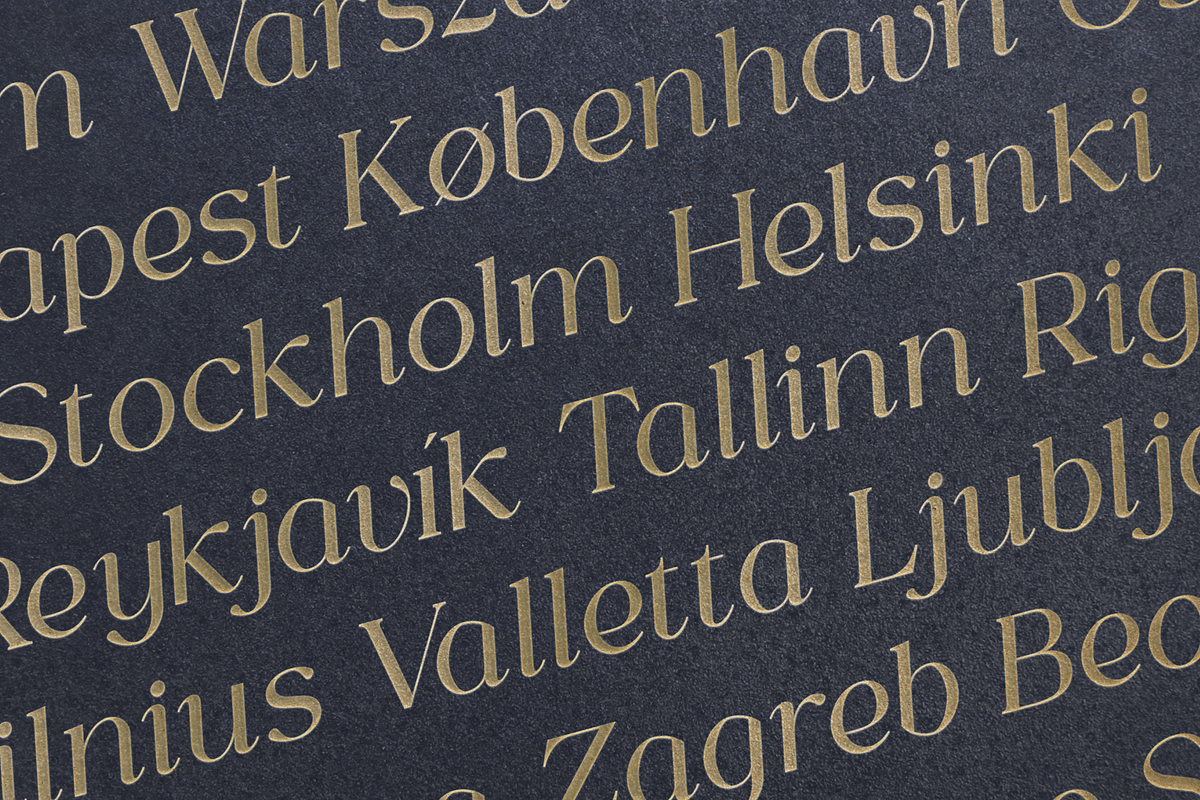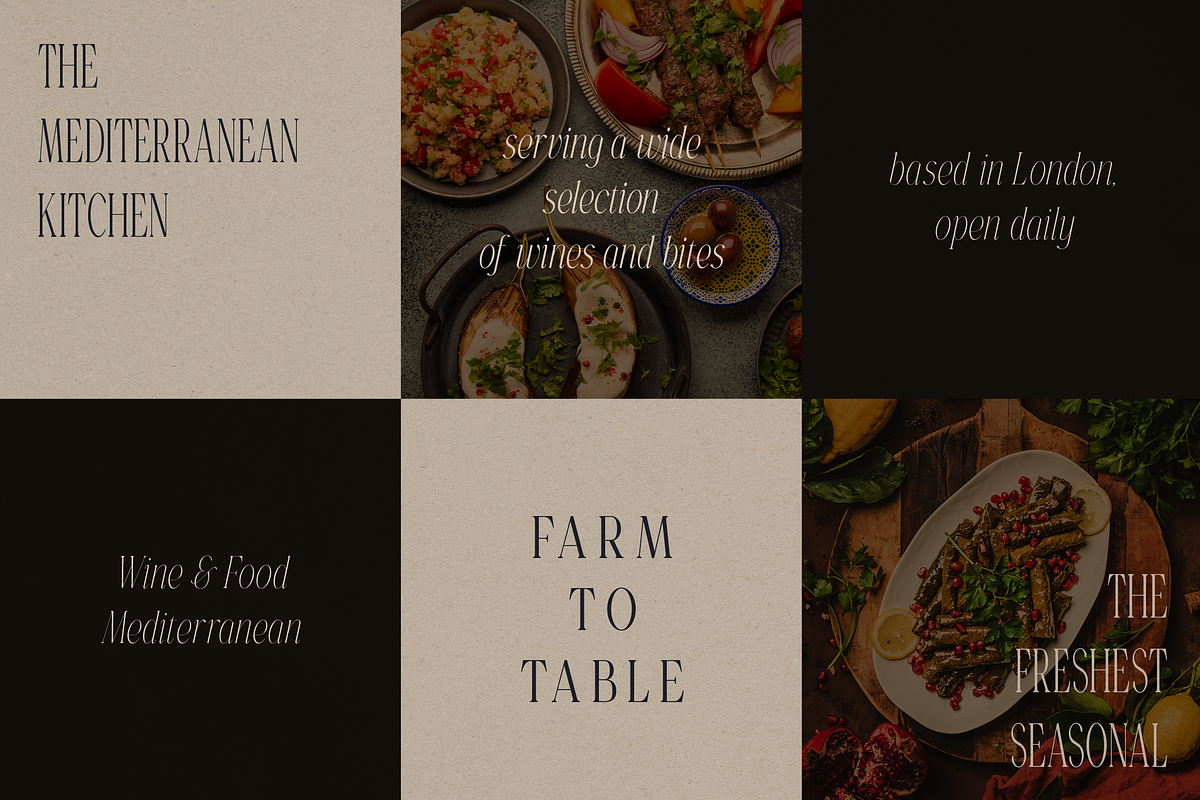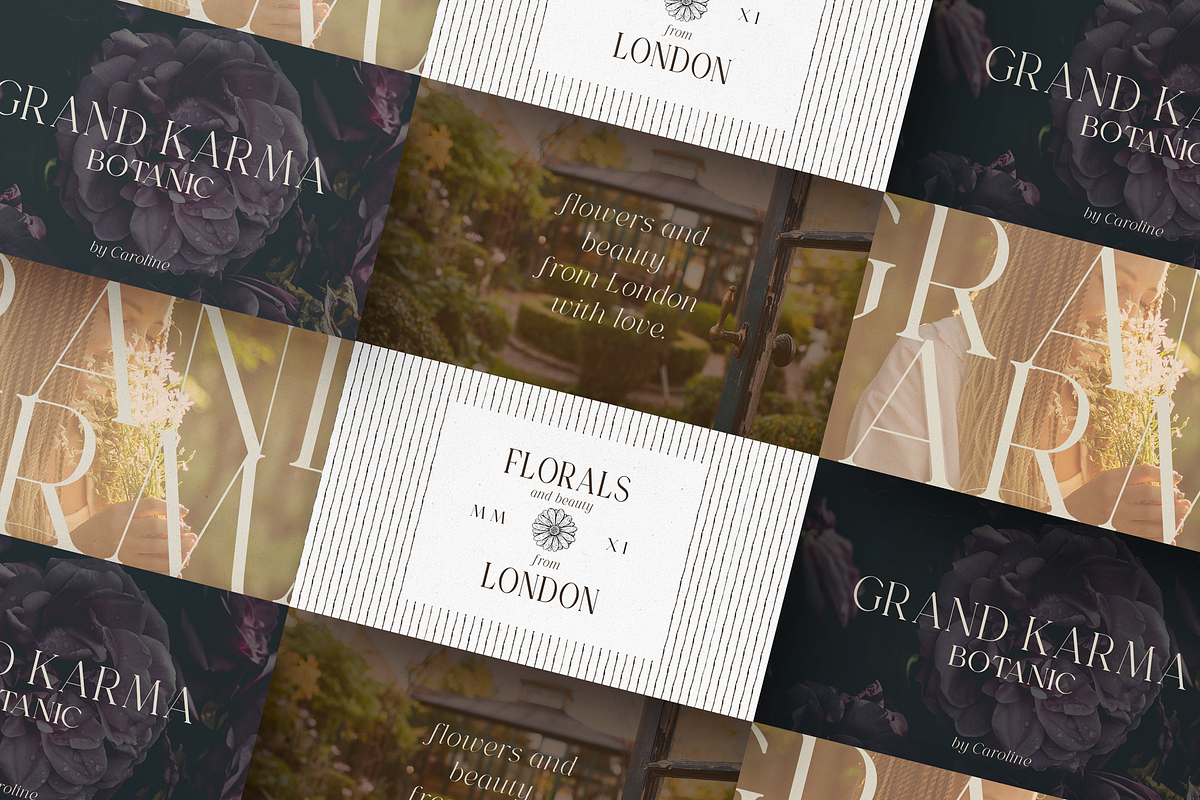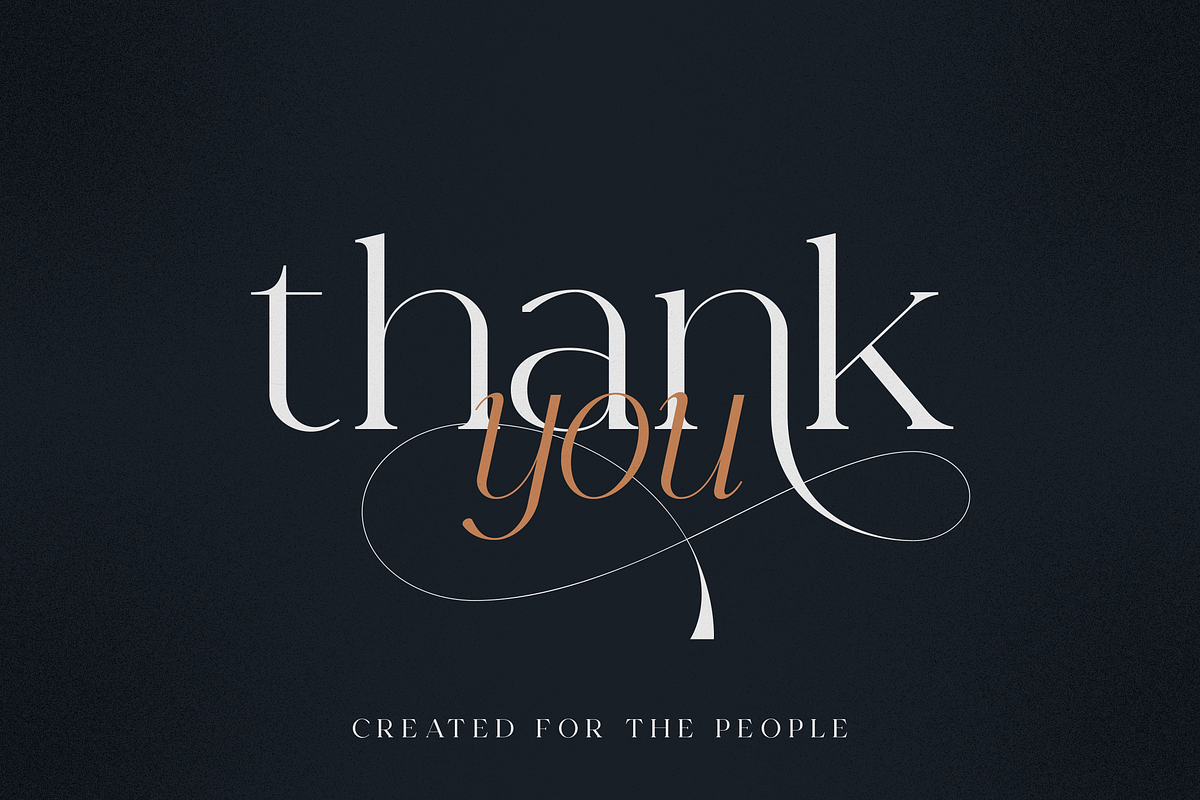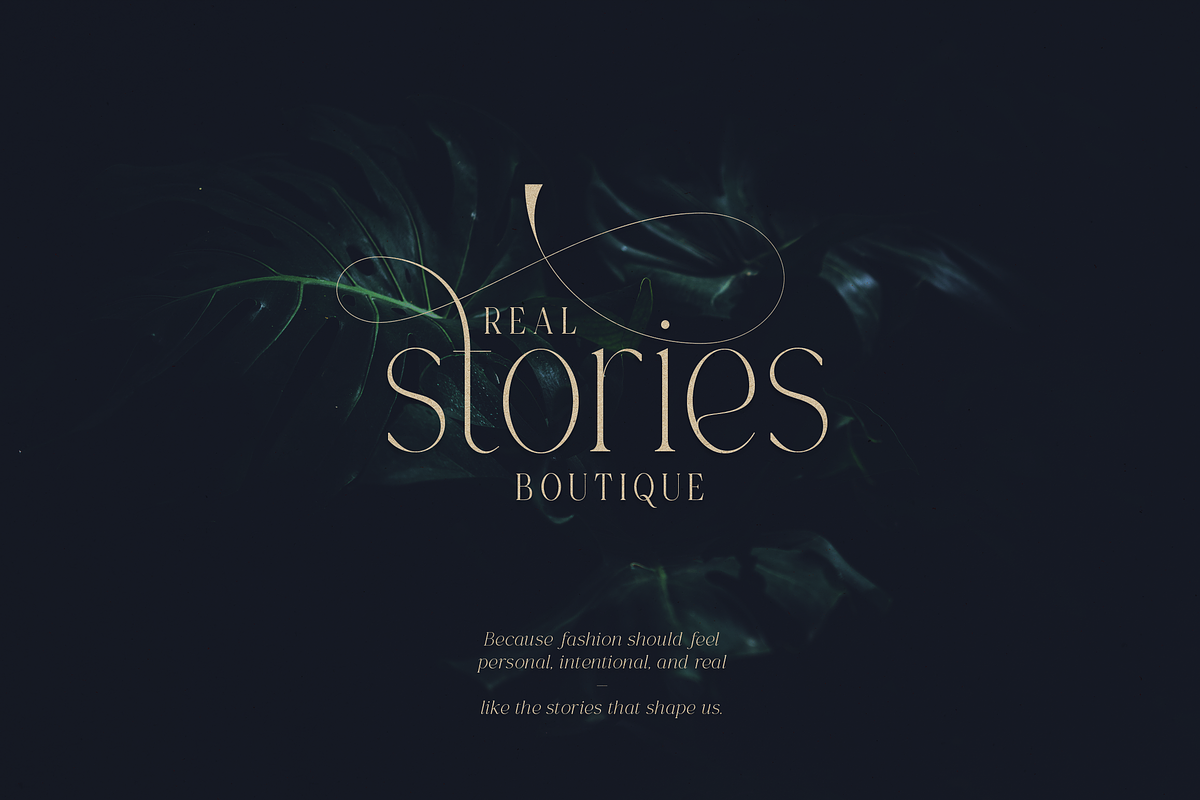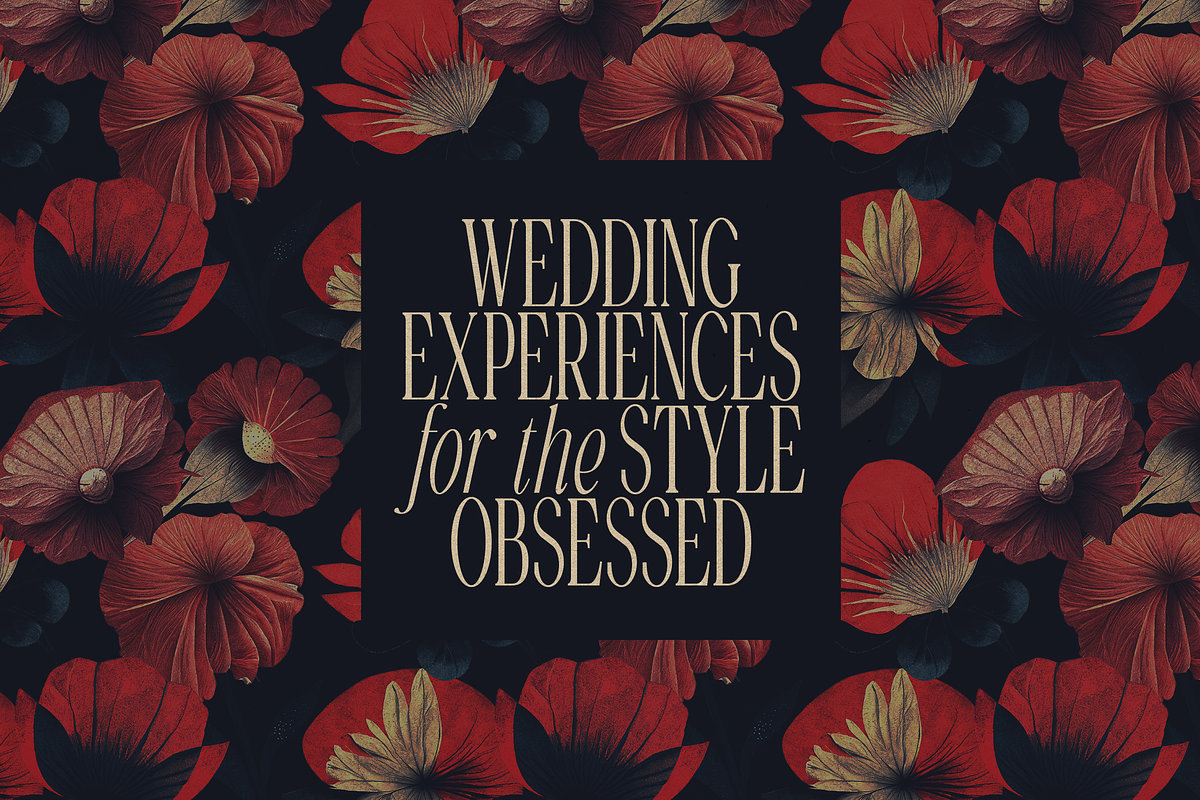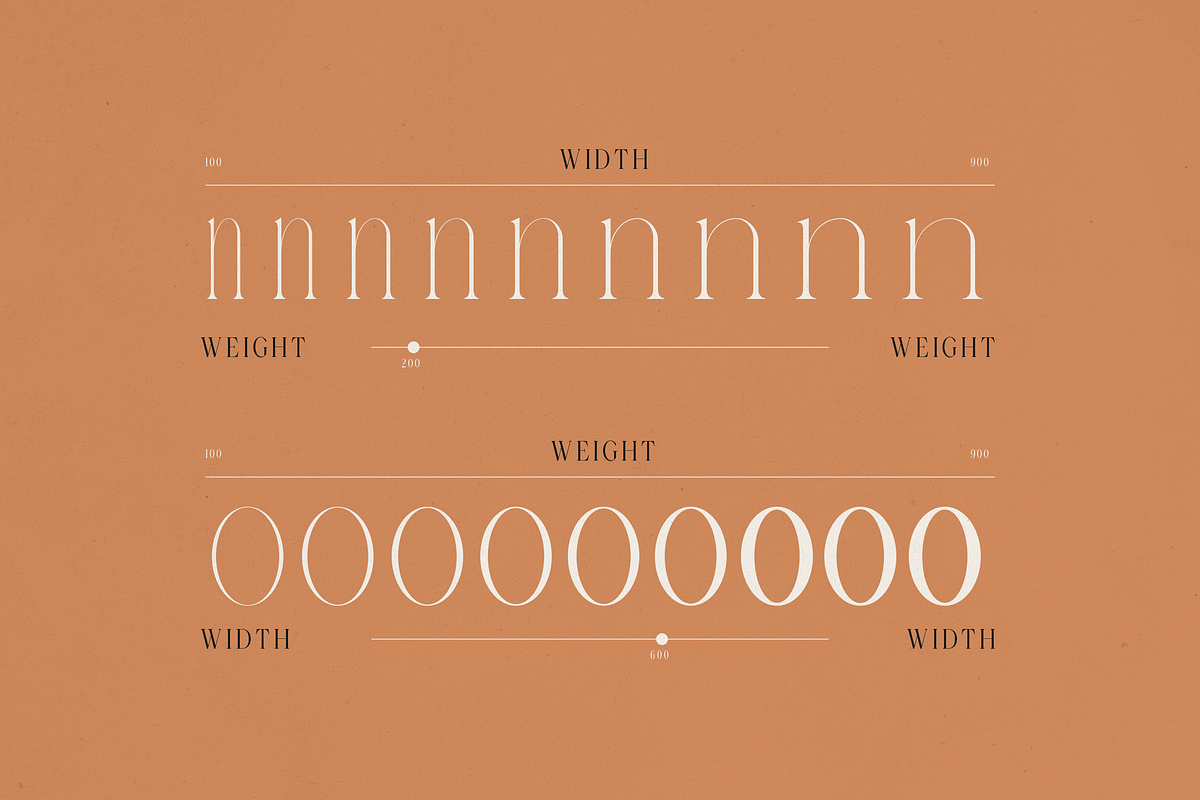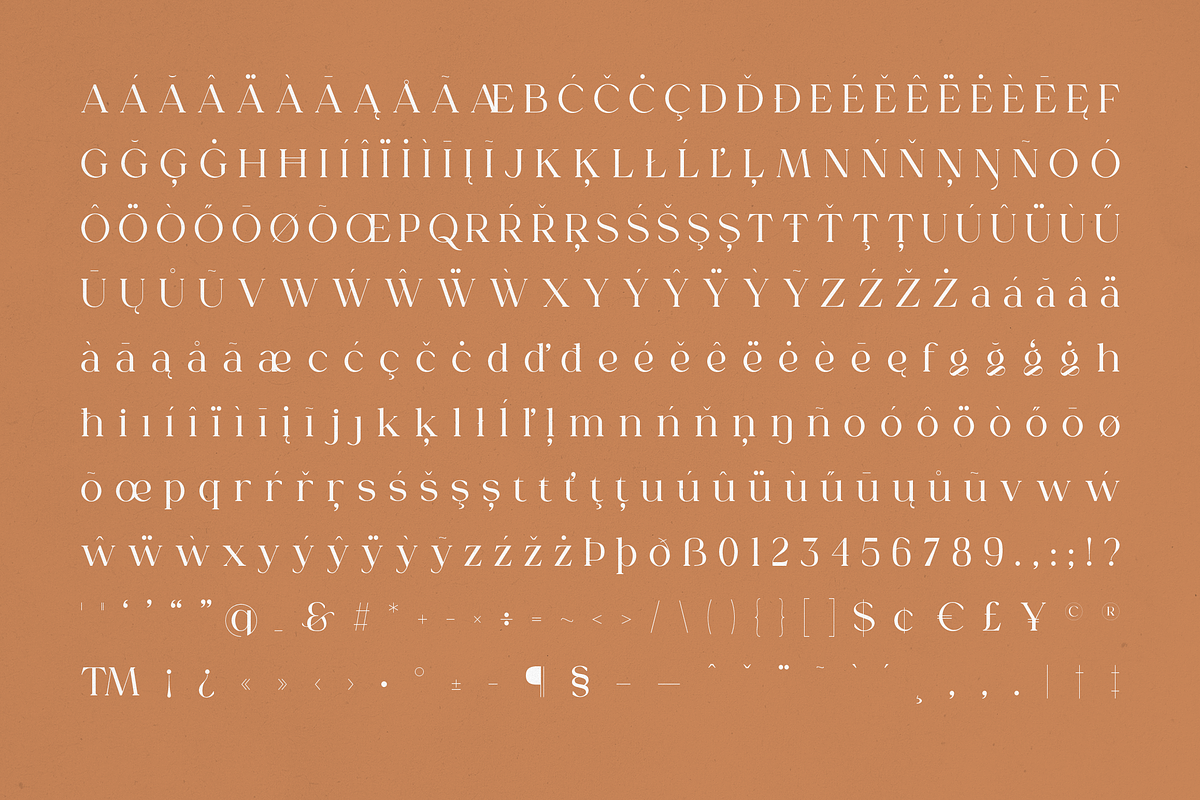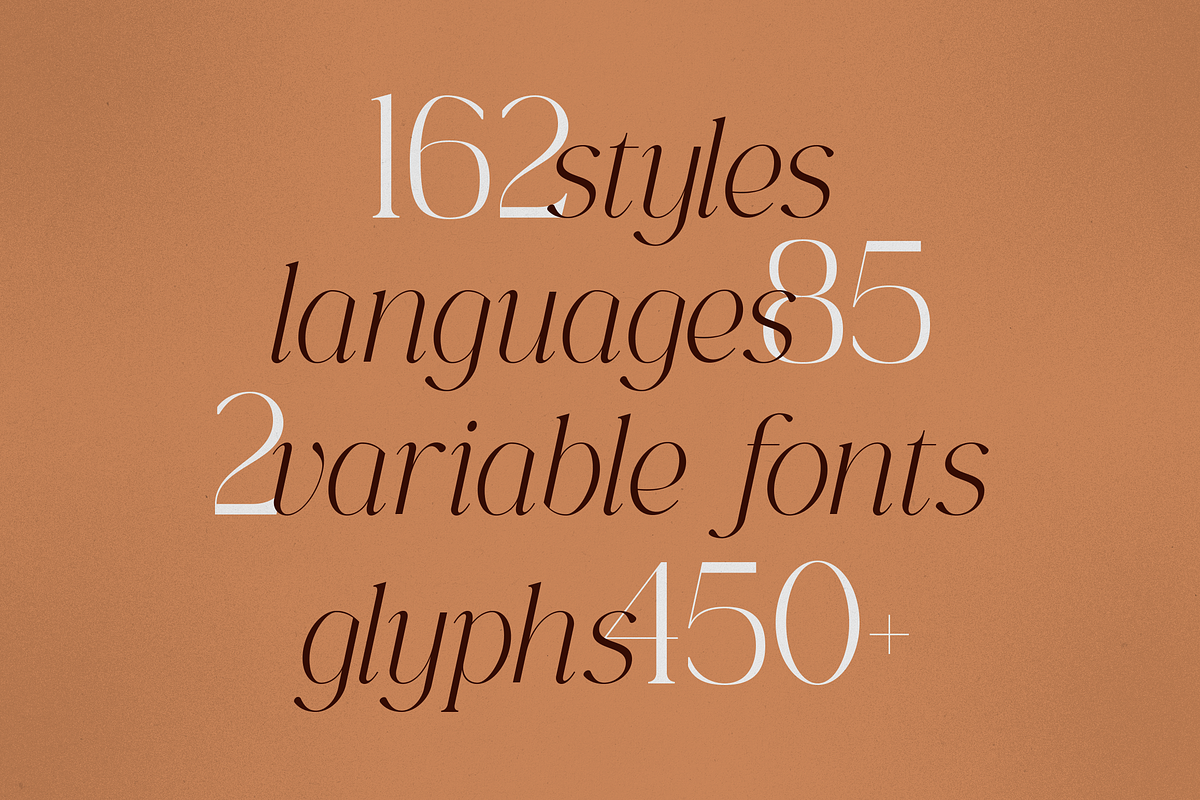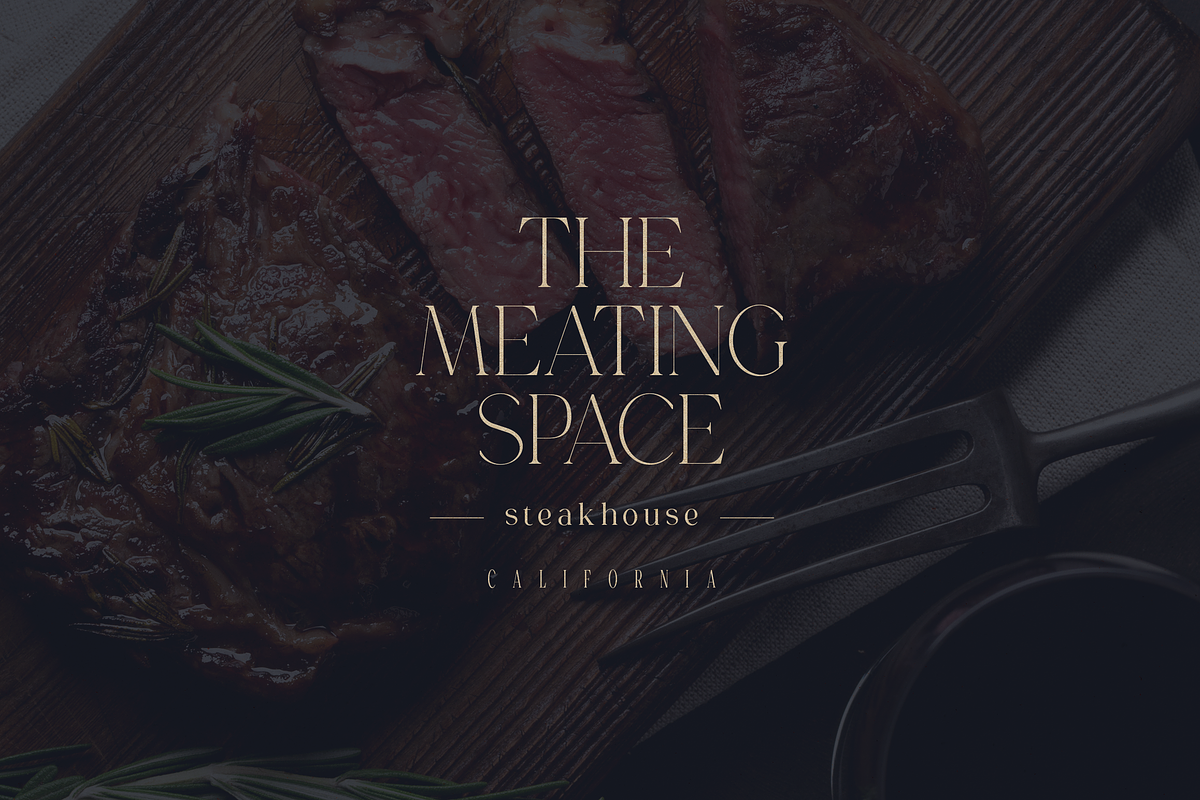
Gorga Type - Elegant Serif Typeface
Gorga Type — Elegant, Expansive, Expressive Serif Typeface
Introducing Gorga Type, a masterfully designed serif typeface family featuring an extraordinary 162 fonts and 2 variable fonts for ultimate flexibility. From ultra condensed to ultra expanded, Gorga Type offers 9 distinctive widths, 9 carefully crafted weights, and true italics for every style — giving you endless creative freedom.
Built to inspire modern elegance and timeless sophistication, Gorga Type is fully multilingual, supporting 85 languages with a rich arsenal of alternate glyphs, swashes, and exquisite typographic details. Whether you're designing for luxury branding, editorial layouts, wedding invitations, fashion campaigns, or high-end hospitality, Gorga Type is crafted to captivate.
- 162 Fonts + 2 Variable Fonts
- 9 Weights, 9 Widths — from Ultra Condensed to Ultra Expanded
- True Italics for Every Style
- Extensive Alternates, Swashes, and Special Glyphs
- Supports 85 Languages
- Perfect for Editorial Design, Branding, Advertising, Fashion, Hospitality, and Creative Projects
Gorga Type doesn’t just follow trends — it sets them. Designed with both beauty and functionality in mind, it's your ultimate serif font solution for projects that demand style, performance, and versatility.